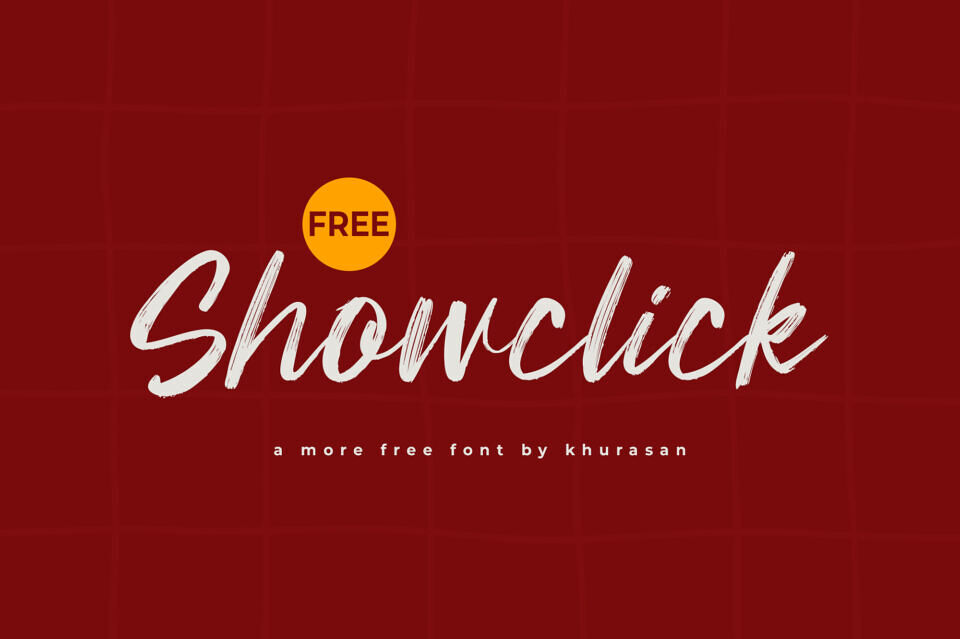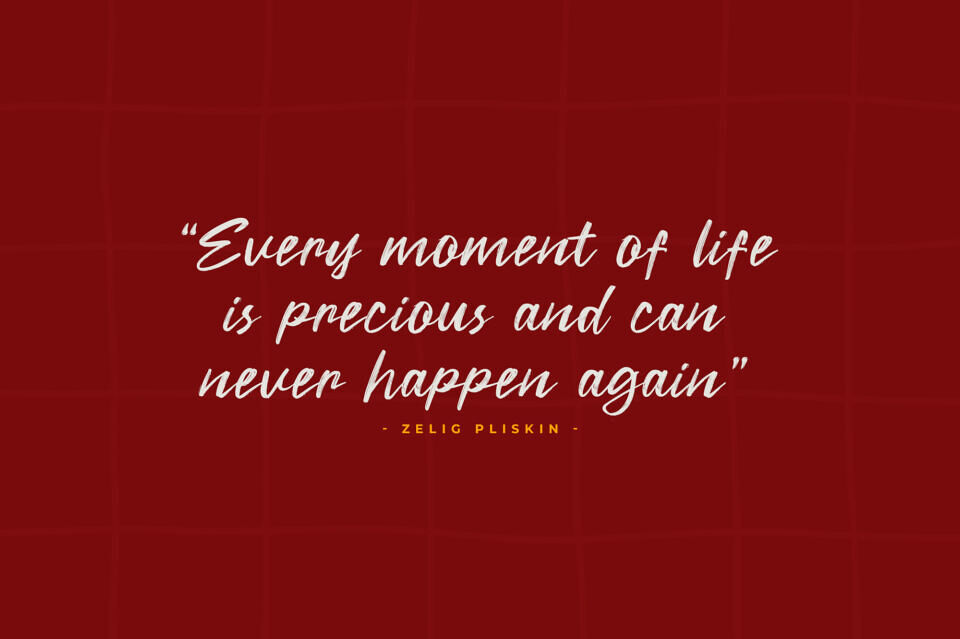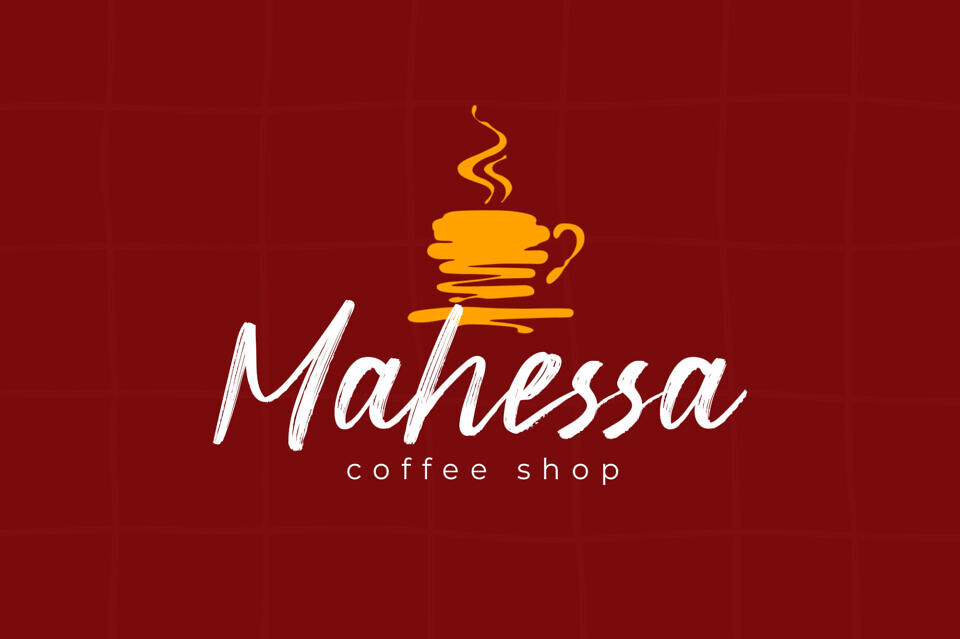
Showclick Font
Showclick is a modern script font perfect for posters, logos, magazines, book covers, banners, and many more! Get this amazing font, and use it to create lovely designs.
Designed by: Khurasan (Syafrizal)